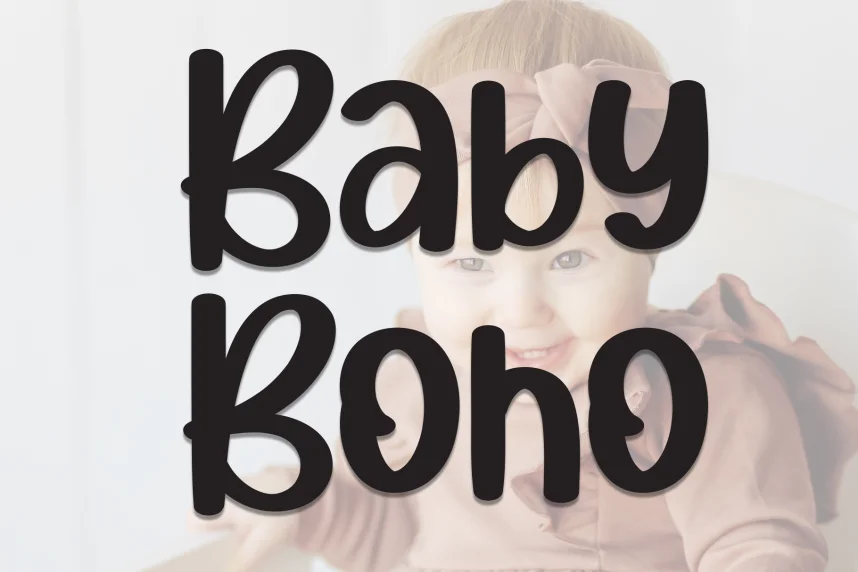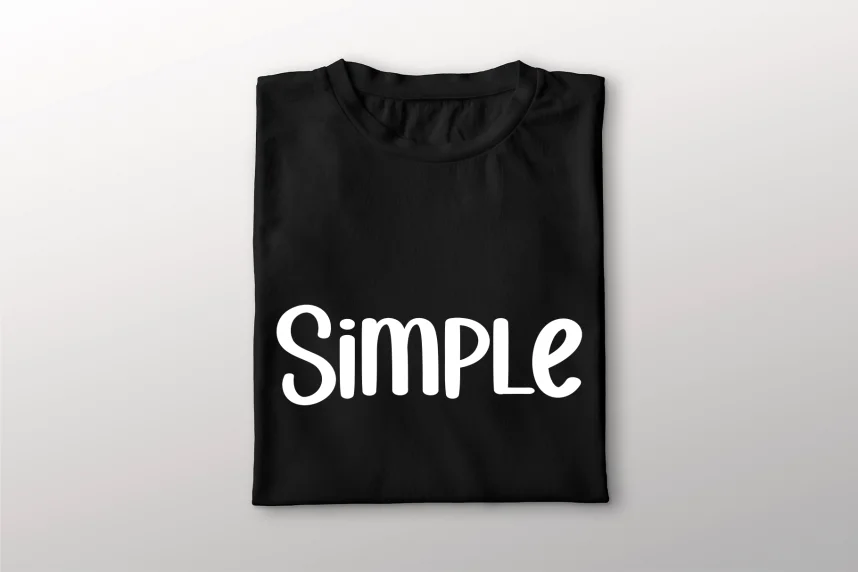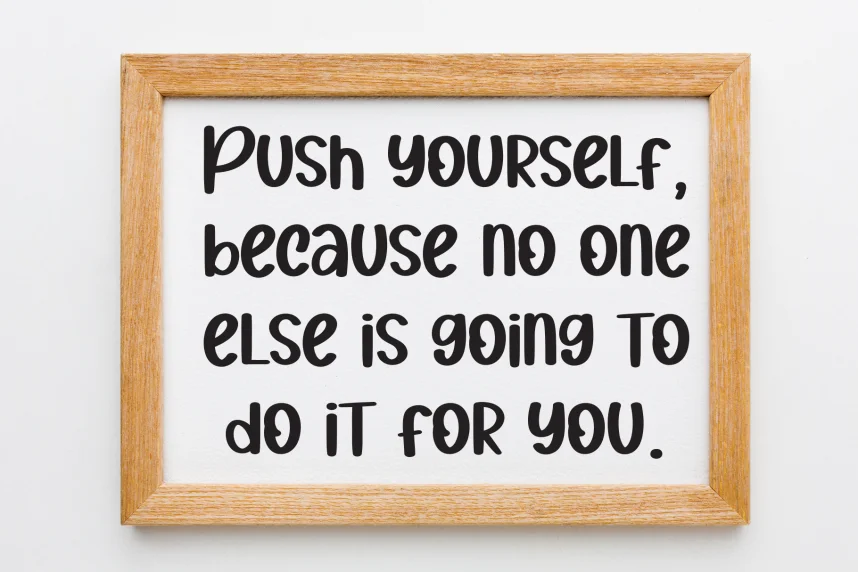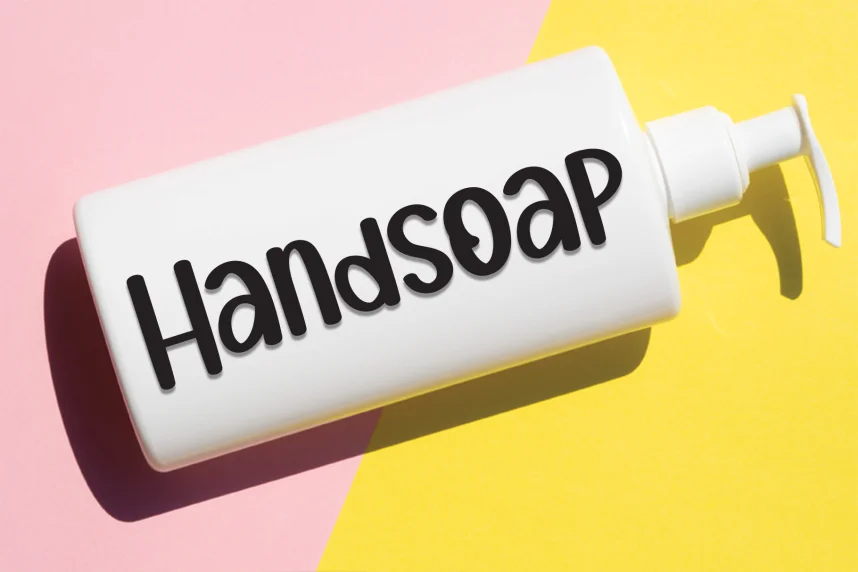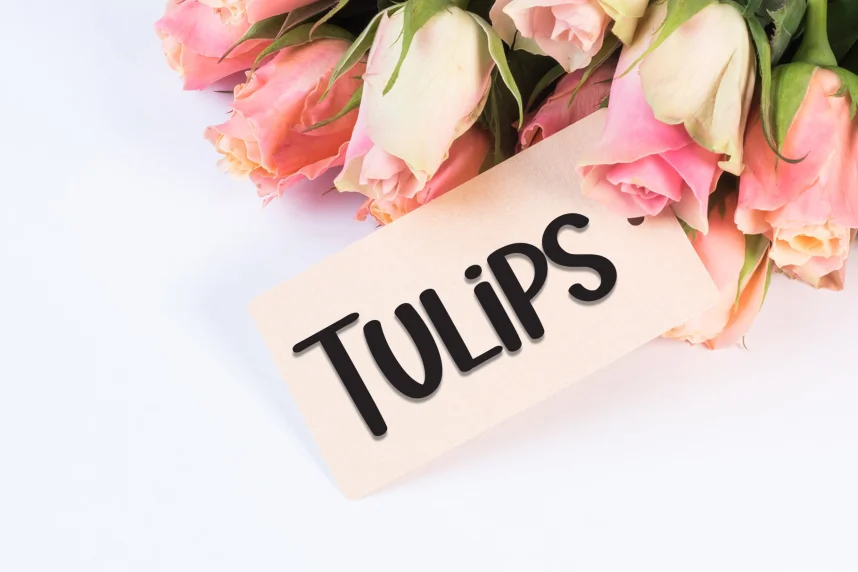
Baby Boho Playful Font addresses the need for a fun, friendly font that appeals to a younger audience while remaining readable. Designers often use it for children’s products and playful designs.
Baby Boho is a playful sans-serif font featuring rounded, whimsical letterforms with exaggerated curves and occasional irregularities. The font has a relaxed, bohemian feel, making it ideal for informal projects that aim for an approachable look.